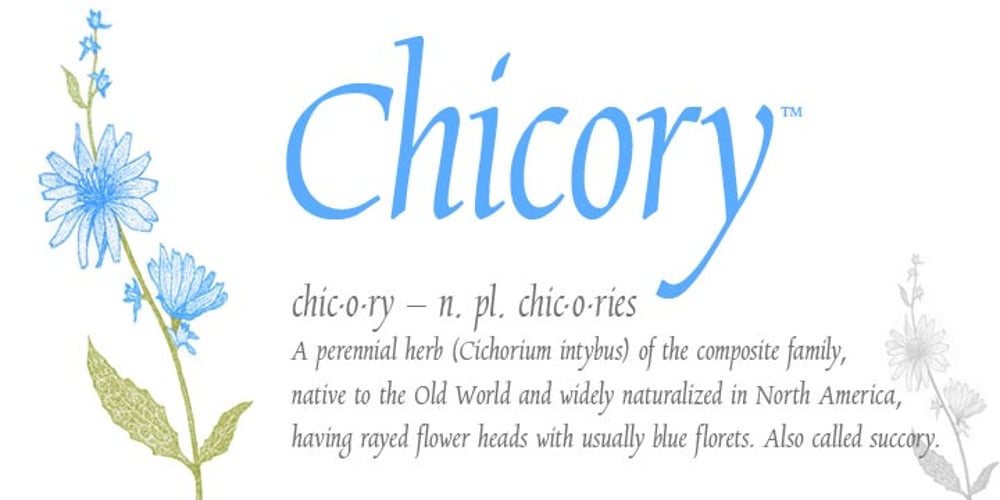
Chicory Font Family was designed by Steve Matteson and published by Ascender. Chicory contains 1 styles and family package options. Chicory is a beautiful new calligraphic typeface with a touch of elegance. The narrow chancery style is perfect for formal invitations, newsletter mastheads, menus and greeting cards.